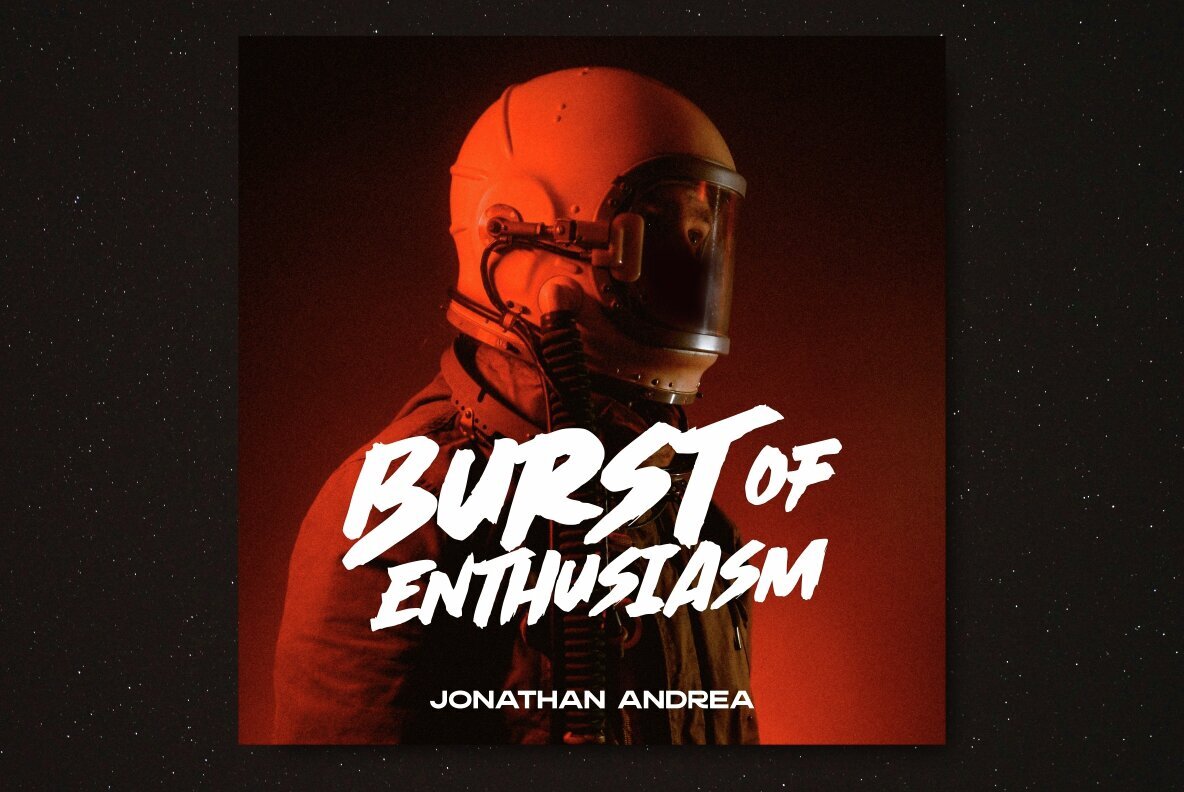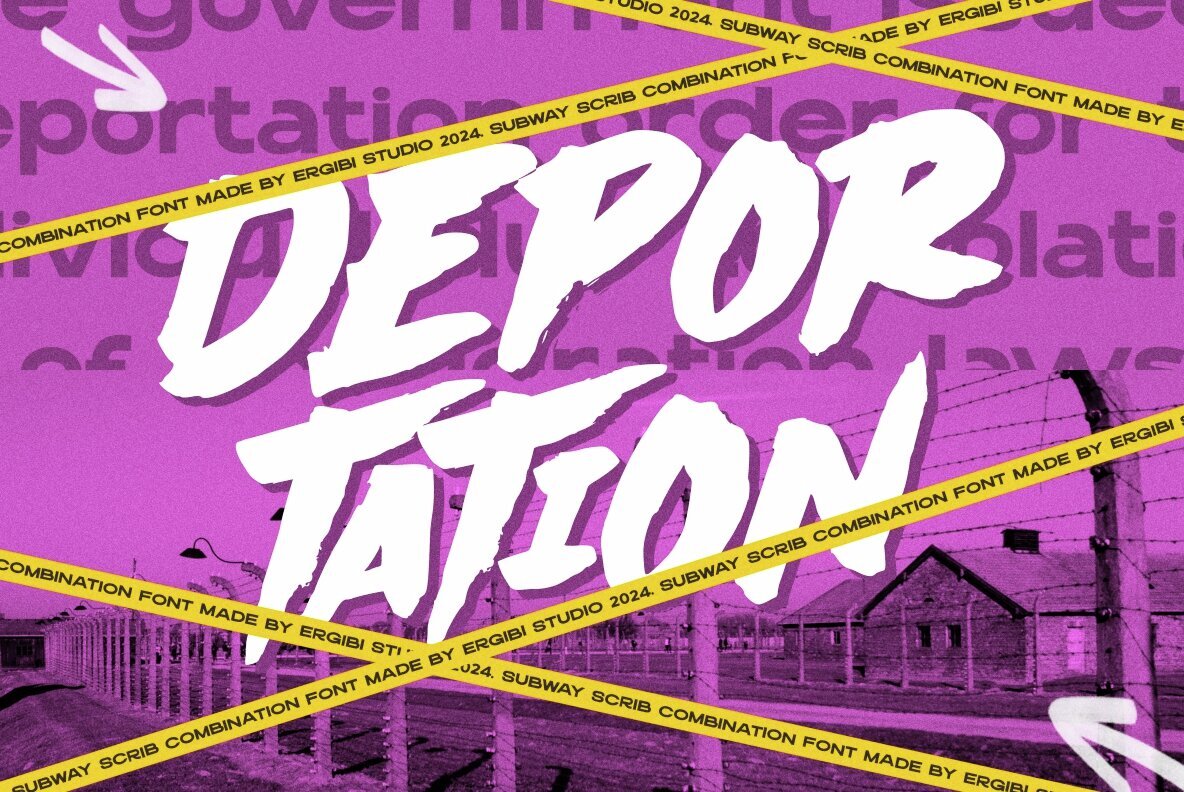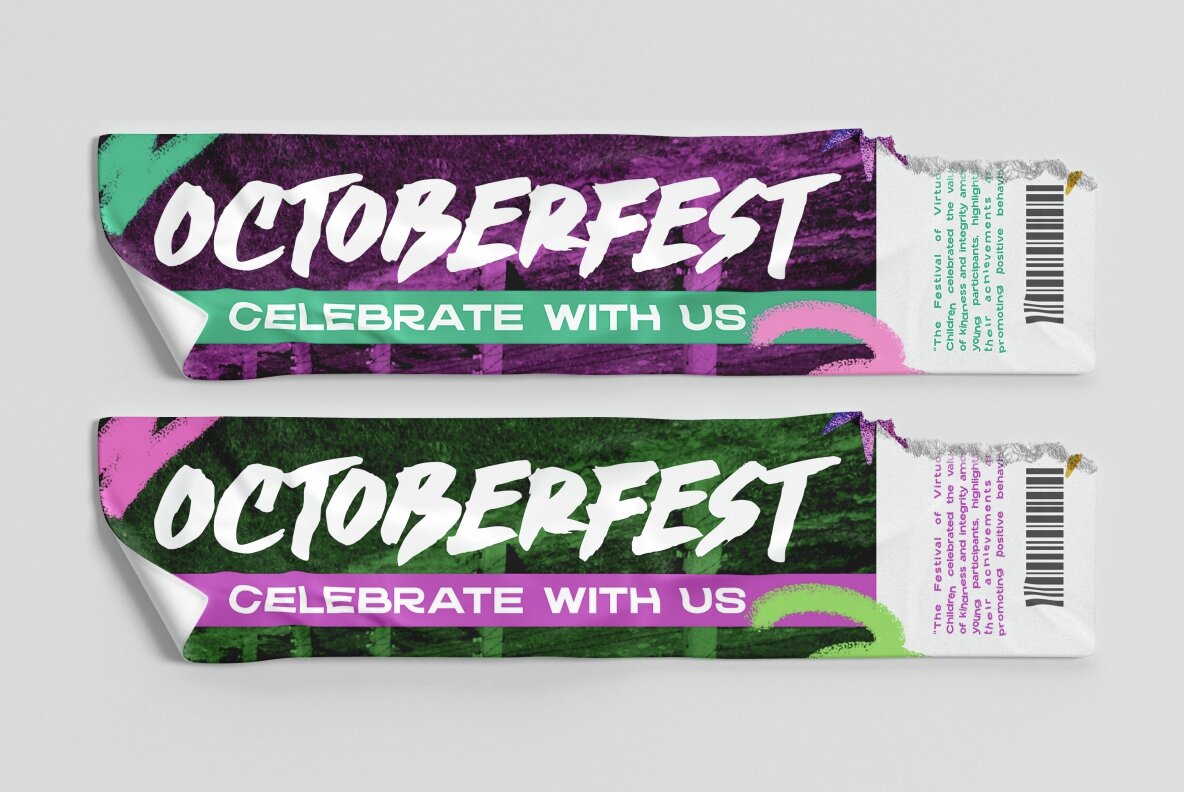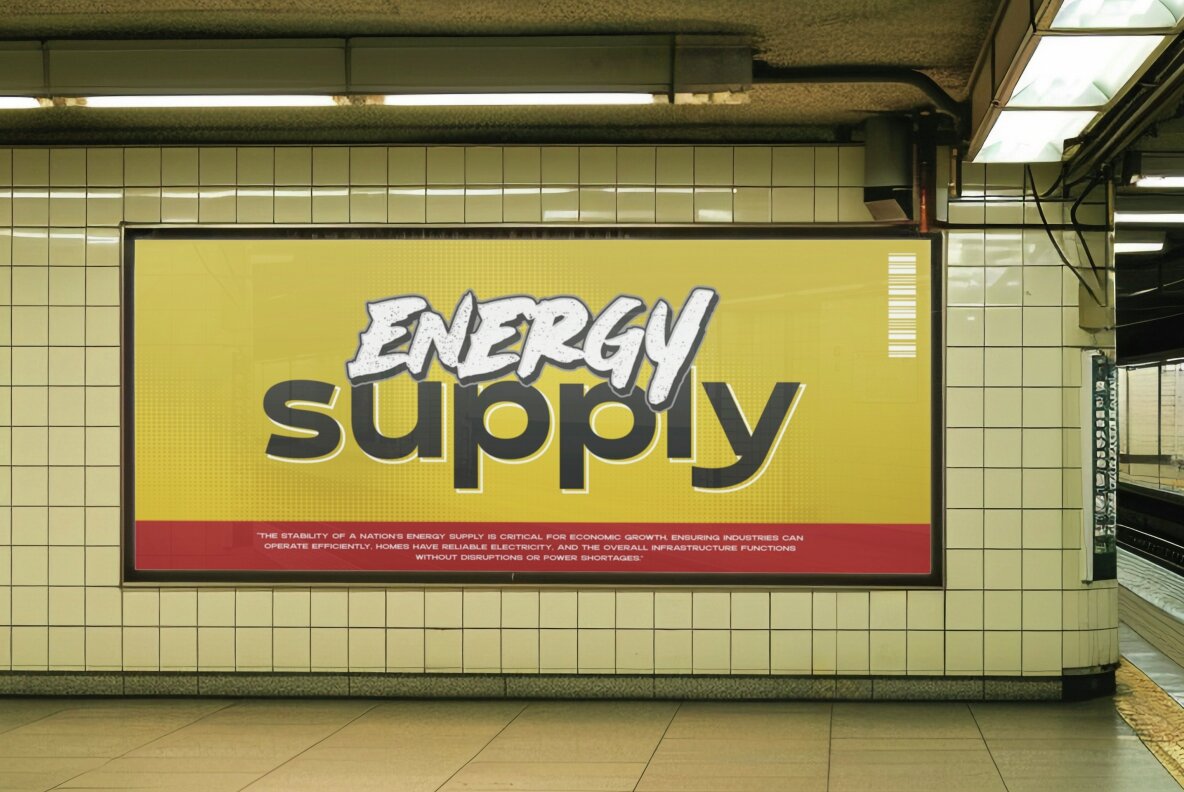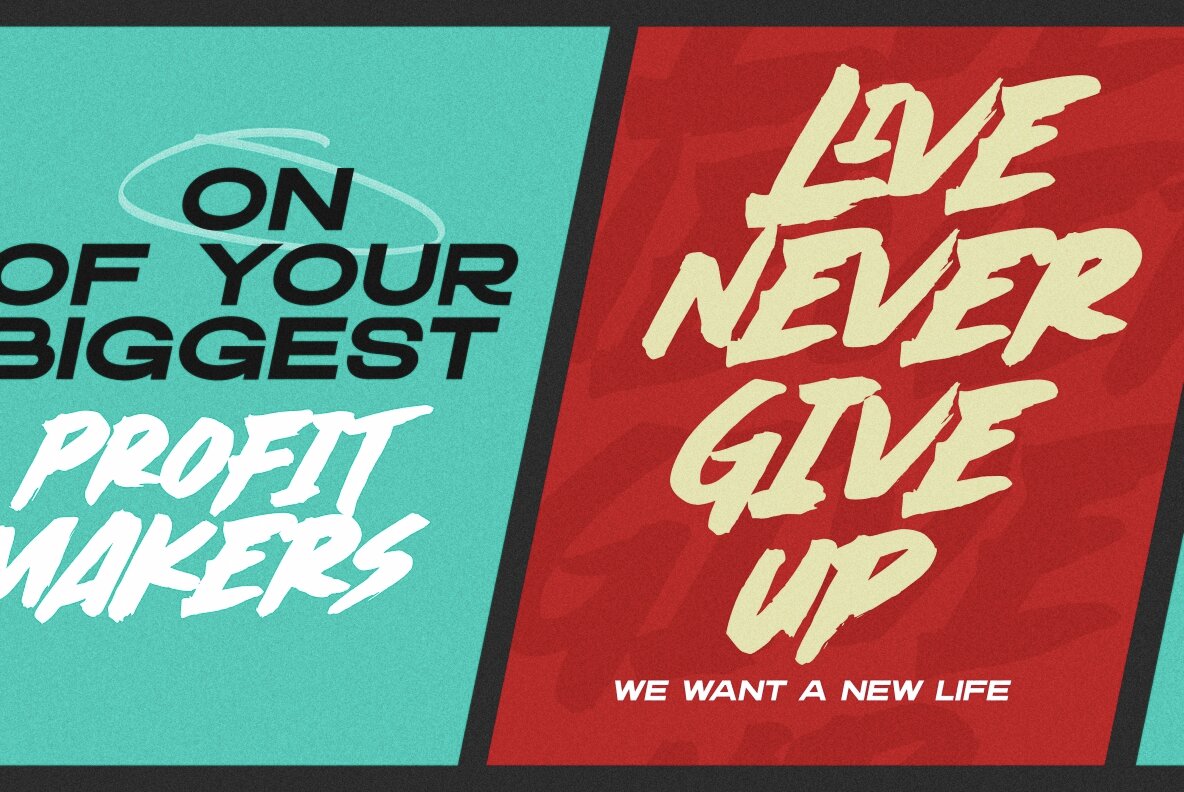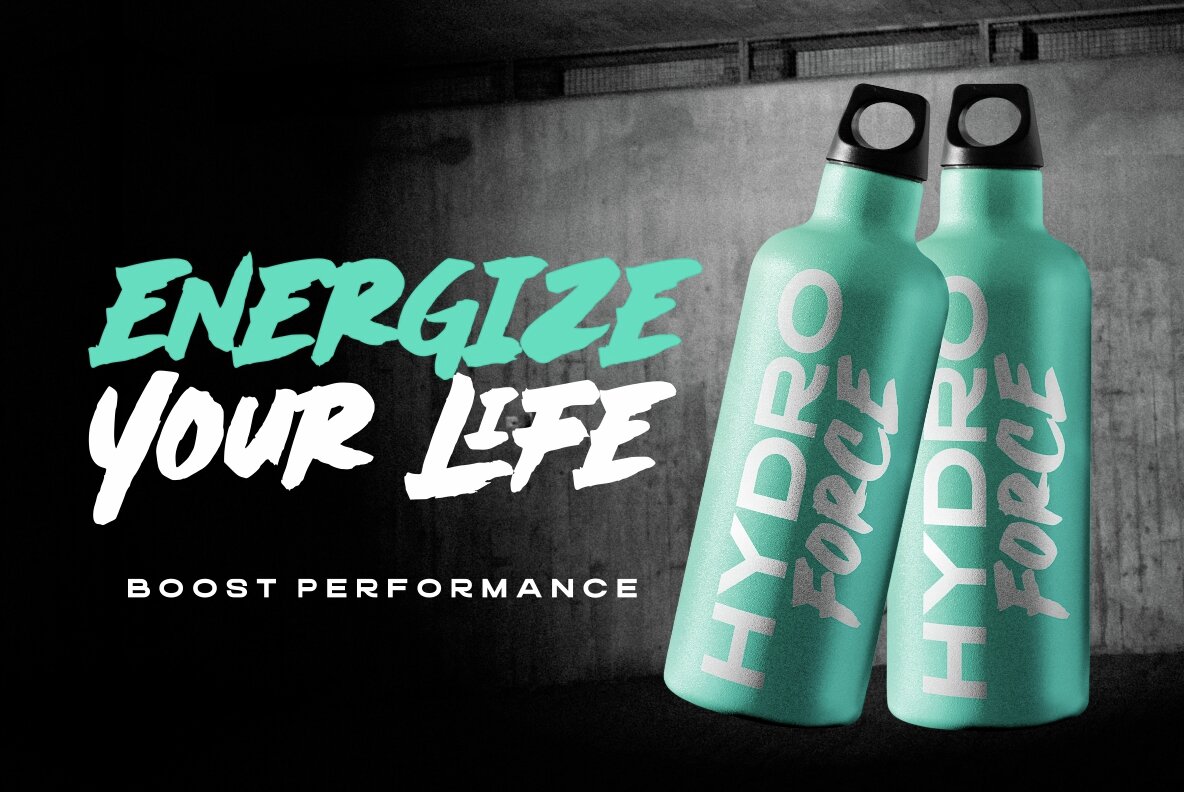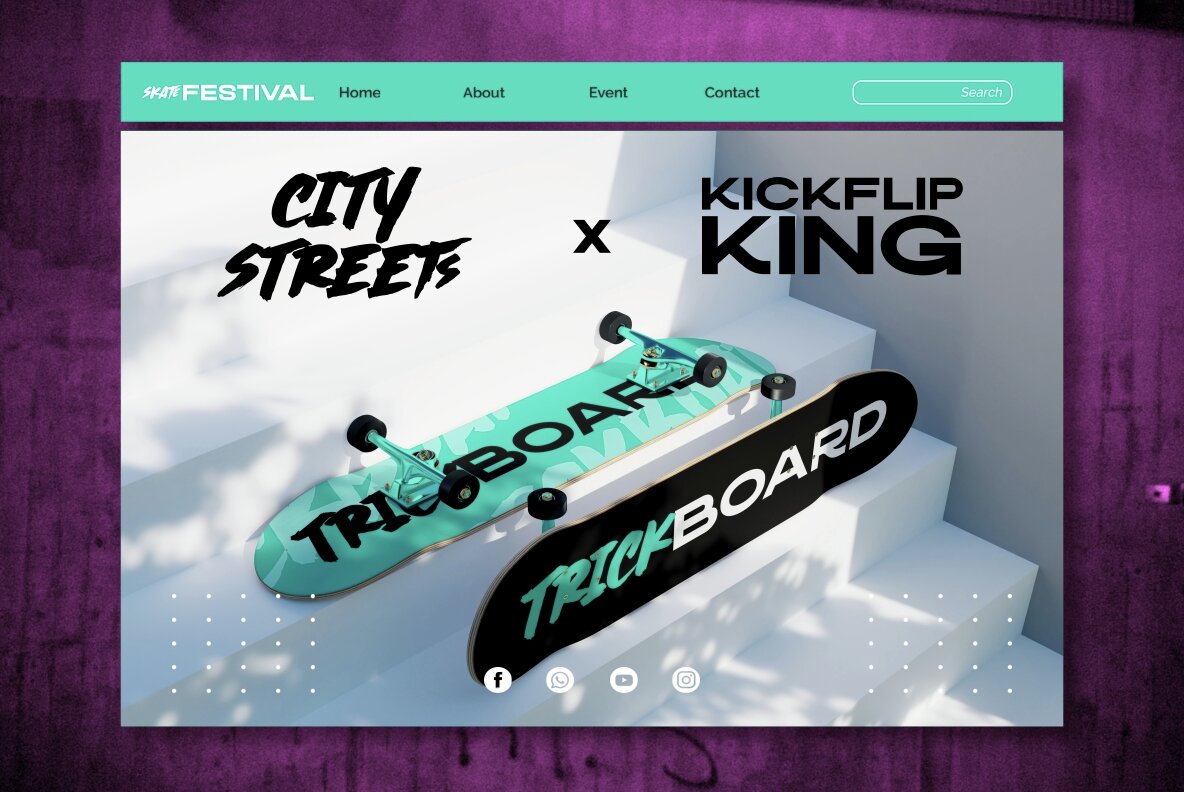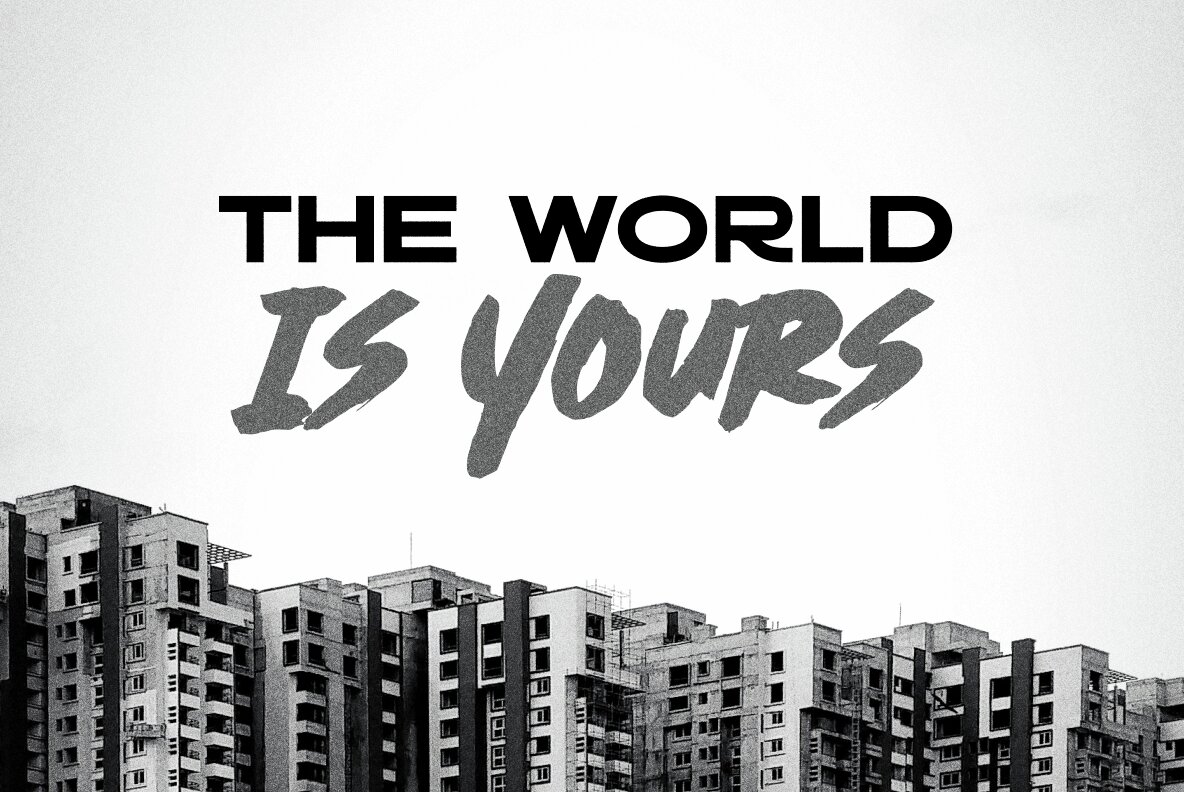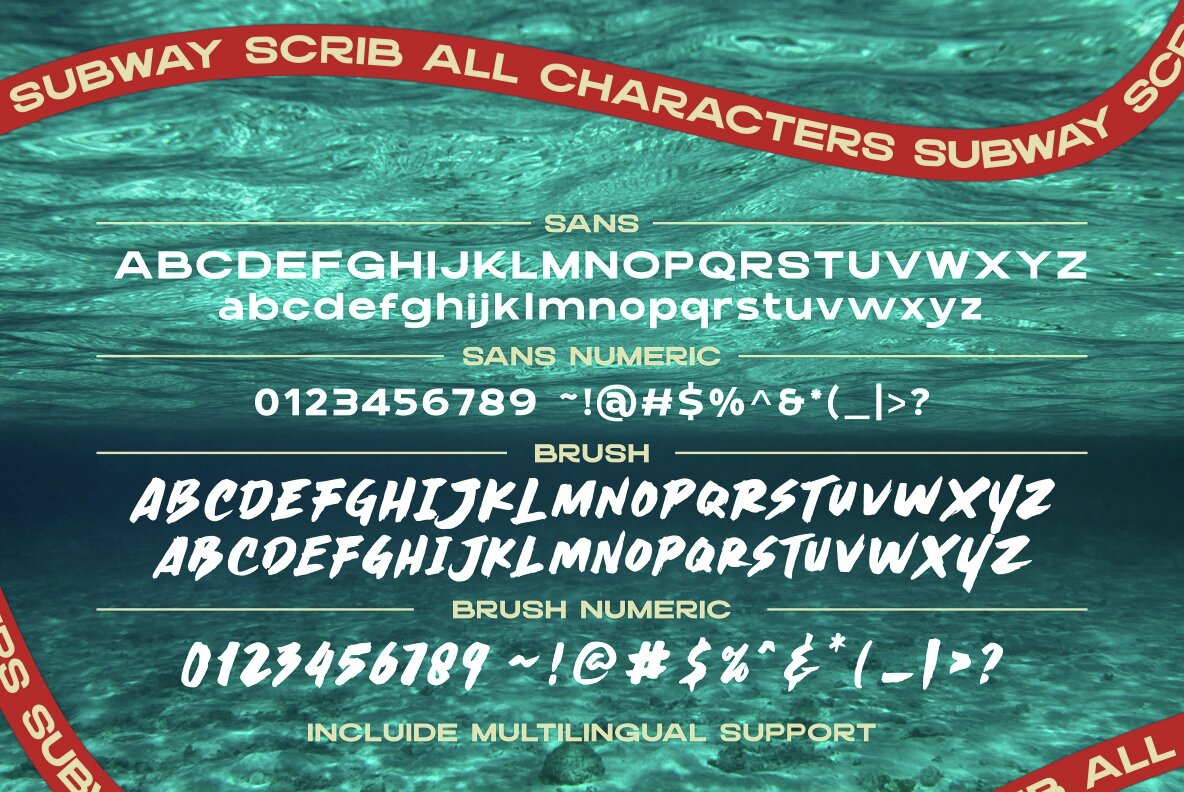
Subway Scrib Font
Introducing Subway Scrib - Font Duo, a dynamic blend of expressive brush marker strokes and a clean, modern sans-serif. This powerful combination captures the essence of street art, featuring a bold brush marker font that exudes a handcrafted, rebellious spirit. Complemented by a sleek, minimalistic sans, this duo strikes a perfect balance between edgy and refined, making it an excellent choice for street art designs, posters, covers, apparel, and logos. Subway Scrib encapsulates the raw energy of the city while maintaining a sharp, stylish presentation.
Subway Scrib includes standard glyphs, ligatures, and international accents, ensuring versatility and adaptability across various design projects. Compatible with both PC and Mac, the font duo offers simple installation, making it a convenient addition to any designer’s toolkit. Engage your audience with the gritty charm and modern elegance of Subway Scrib, and bring your urban-inspired designs to life.